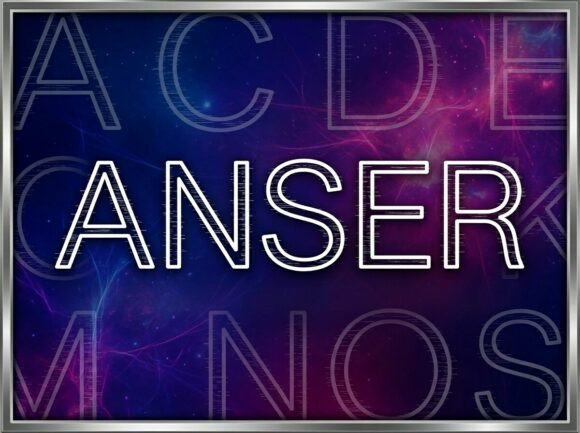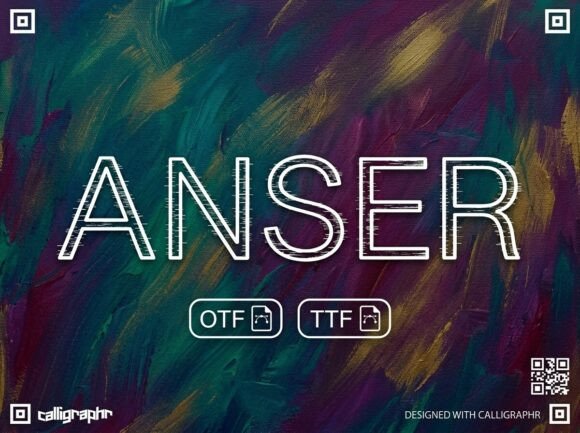
Introducing Anser Font: A Stunning Decorative Display Font
Are you tired of using the same old fonts for your designs? Do you want to add a touch of uniqueness and creativity to your work? Look no further than Anser Font, a decorative display font that is sure to turn heads. In this article, we’ll take a closer look at what makes Anser Font special and how it can elevate your designs.
Anser Font is a stunning decorative display font designed to be the center of attention. With its unique artistic elements and strong visual personality, this font is perfect for creators who want to break away from the ordinary. Whether you’re working on a bold headline, artistic logo, or creative packaging, Anser Font is versatile enough to make a lasting impression.
This means that Anser Font is perfect for designs where you want to make a bold statement, but it’s not suitable for body text or other applications where lowercase letters are necessary.
Use Cases for Anser Font
So, what can you use Anser Font for? Here are a few ideas:
- Headlines and Titles – Use Anser Font to create eye-catching headlines and titles that grab attention.
- Logos and Branding – Create a unique and memorable logo for your business or brand with Anser Font.
- Packaging and Labeling – Add a touch of elegance and sophistication to your packaging and labeling with Anser Font.
- Signage and Displays – Use Anser Font to create eye-catching signage and displays that stand out from the crowd.
Why Choose Anser Font?
So, why should you choose Anser Font over other decorative display fonts? Here are a few reasons:
- Unique and Creative – Anser Font offers a unique and creative way to add visual interest to your designs.
- Professional and Polished – Despite its decorative nature, Anser Font maintains a professional and polished finish.
- Versatile – Anser Font can be used in a variety of applications, from graphic design to packaging and labeling.
In conclusion, Anser Font is a stunning decorative display font that is perfect for creators who want to add a touch of uniqueness and creativity to their designs. With its unique artistic elements, strong visual personality, and versatility, Anser Font is sure to make a lasting impression. Whether you’re working on a bold headline, artistic logo, or creative packaging, Anser Font is a great choice.